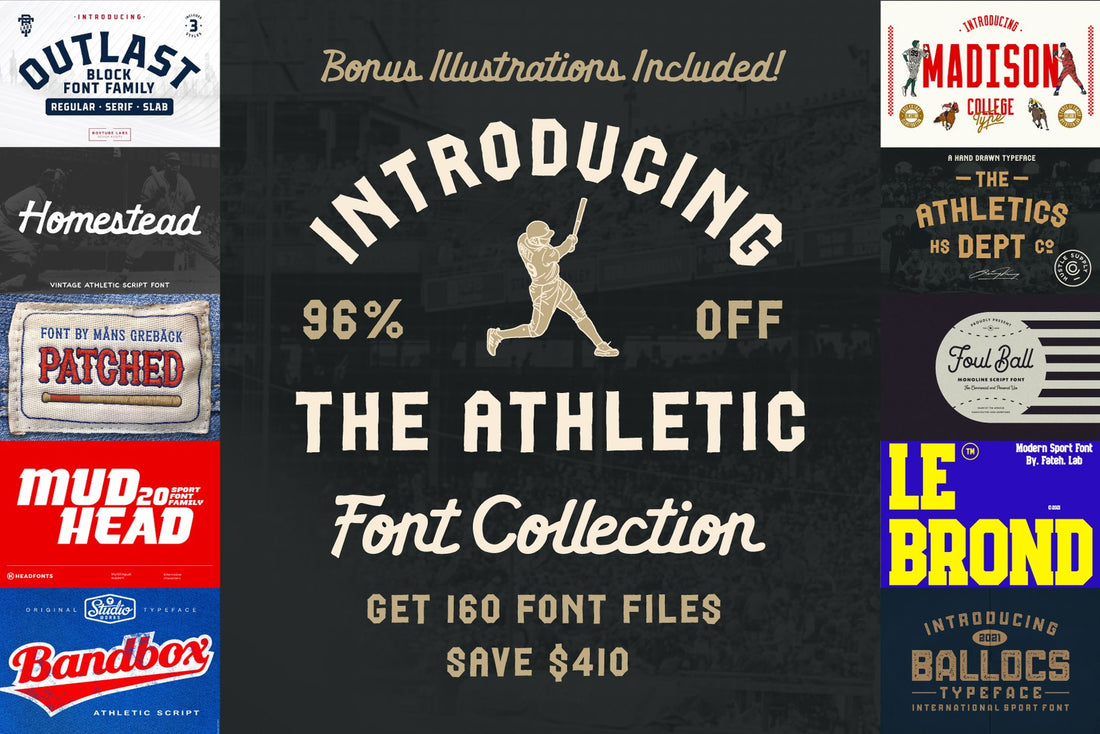
Whew! Parker Creative just got featured in two epic bundles by Pixel Surplus at the same time! In the Athletic Font Collection you'll get a curated set of typefaces from various foundries all focused around the world of sports. From modern baseball to vintage football and beyond (::cough:: my featured racing typeface Revv), there's something in there for every athletic aficianado!